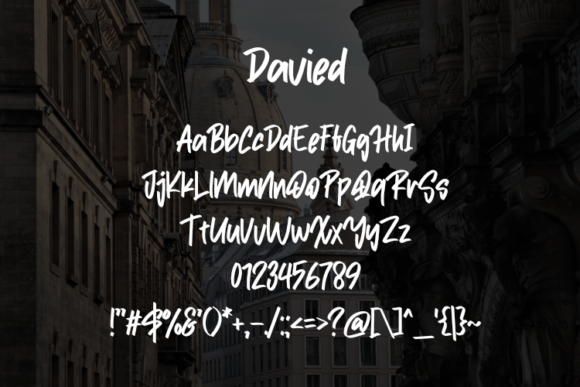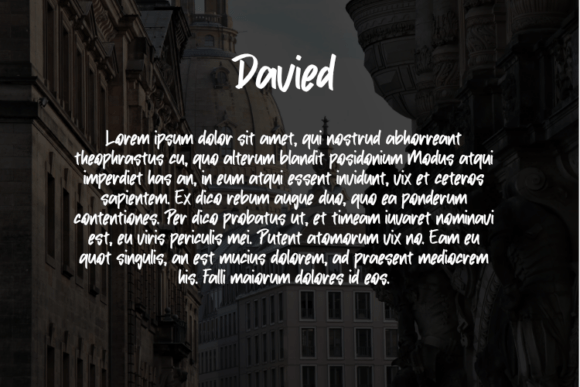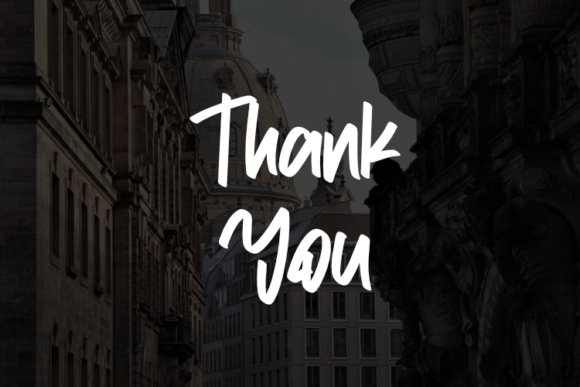
Unveiling “Davied”: The Ultimate Typography for Apparel, Tees, and Product Graphics
In the world of design, typography plays a crucial role in bringing creativity to life. For designers and crafters, finding the perfect font can be a daunting task. However, with the introduction of “Davied,” a quintessential typography designed specifically for apparel, tees, and diverse product graphics, the search is over. This versatile font family is custom-tailored to amplify all designs across any software platform, making it an indispensable tool for creatives.
What is “Davied”?
“Davied” is a thoughtfully crafted font family, designed to cater to the needs of designers and crafters who require a typography that can effortlessly elevate their designs. Whether you’re working on apparel, tees, or product graphics, “Davied” ensures that every creation stands out with inimitable creativity and a stylistic edge. The font’s unique design strikes the perfect harmony between function and aesthetics, making it an ideal choice for various design applications.
Key Features of “Davied”
- Custom-Tailored for Designs: The font family is specifically designed to amplify all designs, providing a stylistic edge that sets your creations apart. Whether you’re working on apparel, tees, or product graphics, “Davied” ensures that your designs look exceptional.
- Versatility: “Davied” is a versatile font family that can be used across diverse design applications. Its unique design makes it an excellent choice for various projects, from apparel and tees to product graphics and more.
Benefits of Using “Davied”
By incorporating “Davied” into your design workflow, you can experience a range of benefits, including:
- Enhanced Creativity: The font’s unique design and stylistic edge can help elevate your designs, allowing you to express your creativity with ease.
- Increased Efficiency: With its effortless compatibility across various software platforms, “Davied” saves you time and effort, allowing you to focus on the creative aspects of your project.
- Consistency: The font family’s consistent design ensures that your brand’s visual identity remains cohesive, regardless of the design application.
Who Can Benefit from “Davied”?
“Davied” is an excellent choice for a range of designers and crafters, including:
- Graphic Designers: Whether you’re working on apparel, tees, or product graphics, “Davied” provides a versatile typography solution that can elevate your designs.
- Fashion Designers: The font’s stylistic edge and effortless compatibility make it an ideal choice for fashion designers who require a typography that can keep up with their creative demands.
- Crafters: For crafters who enjoy working on DIY projects, “Davied” provides a user-friendly typography solution that can help bring their creations to life.
In conclusion, “Davied” is a game-changing typography solution for designers and crafters. Its unique design, effortless compatibility, and versatility make it an indispensable tool for anyone looking to elevate their designs. With “Davied,” you can unlock a world of creative possibilities, ensuring that every creation stands out with inimitable creativity and a stylistic edge.
Whether you’re a seasoned designer or a crafter, “Davied” is an excellent addition to your design workflow. Experience the benefits of this exceptional font family and take your designs to the next level.